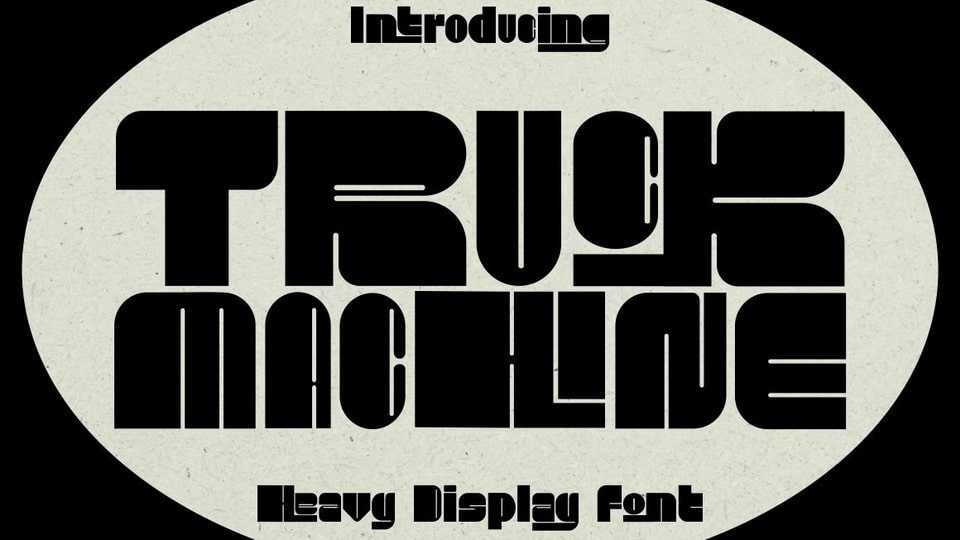
Download Truck Machine font, a heavy display typeface that has a very bold body, unequal widths for the characters. Truck Machine font looks cool and unique for posters and headlines.
Designer: PutraCetol Studio